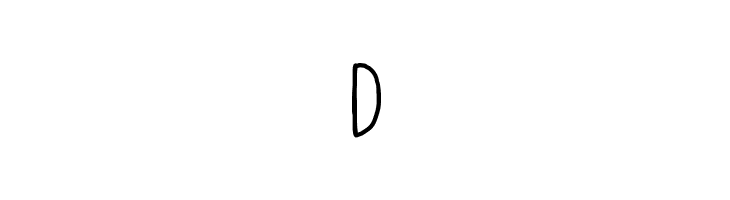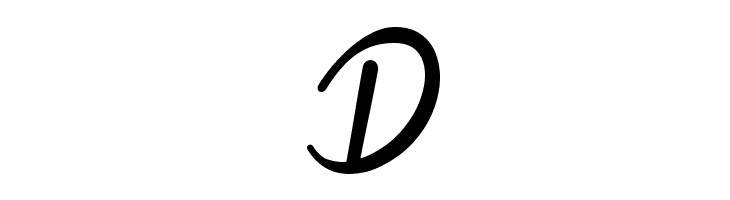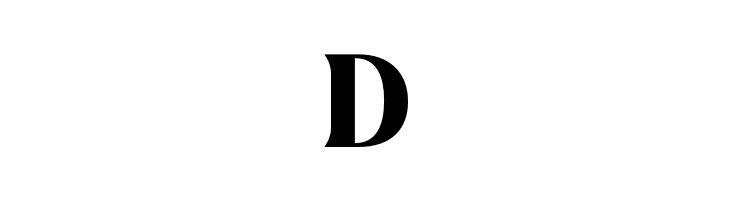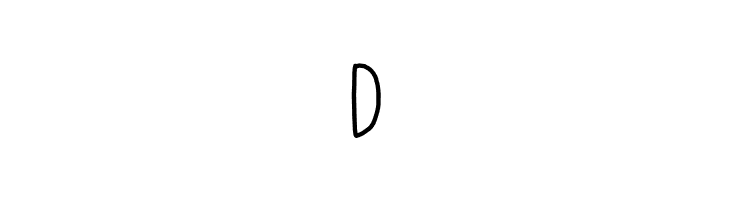
A dynamic and elegant script font with fluid, handwritten characteristics.
A bold, decorative font with a three-dimensional, playful design.
A bold, playful font with rounded edges and a hand-drawn look.
A bold, high-contrast serif font with a modern and elegant style.
A bold, italic serif font with high contrast and sharp serifs.
A flowing, cursive font with elegant loops and swashes, offering a handwritten appearance.
A bold, Gothic-inspired font with sharp, angular edges.
A playful, handwritten font with tall, narrow letters and consistent stroke thickness.
A playful, handwritten font with tall, narrow letters and a casual style.
A playful, hand-drawn font with a sketched, textured appearance.